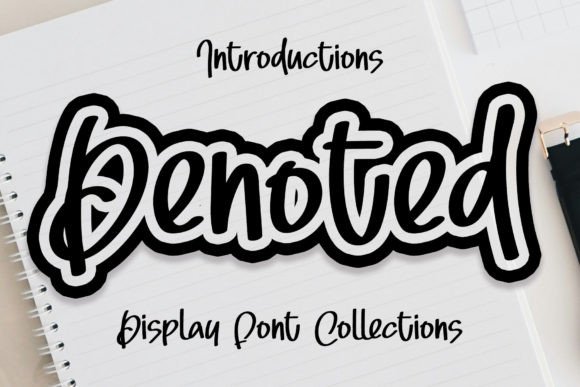
Denoted Font: A Sweet and Friendly Typeface for Your Designs
When it comes to choosing the right font for your design project, the options can be overwhelming. With so many styles and typefaces to choose from, it can be difficult to find the perfect fit. However, if you’re looking for a font that is both sweet and friendly, look no further than Denoted. This beautiful font is perfect for a wide range of designs, from creative projects to commercial applications.
The Unique Style of Denoted Font
Denoted font is a unique and natural typeface that is sure to capture the attention of your audience. Its distinctive style is characterized by its rounded edges and smooth curves, giving it a friendly and approachable feel. The font’s natural style makes it incredibly fitting for a large pool of designs, from playful and creative projects to more formal and professional applications.
The Versatility of Denoted Font
One of the best things about Denoted font is its versatility. Its unique style makes it suitable for a wide range of designs, from:
- Creative projects, such as brochures, flyers, and posters
- Commercial applications, such as logos, branding, and advertising
- Digital media, such as websites, social media graphics, and email marketing campaigns
- Print materials, such as business cards, letterheads, and invoices
The only limit to using Denoted font is your imagination. With its natural and unique style, you can create stunning designs that capture the attention of your audience and leave a lasting impression.
The Benefits of Using Denoted Font
There are many benefits to using Denoted font in your designs. Some of the advantages of this beautiful font include:
- Unique style: Denoted font has a distinctive style that sets it apart from other typefaces.
- Versatility: Denoted font is suitable for a wide range of designs and applications.
- Friendliness: The font’s natural and rounded edges give it a friendly and approachable feel.
- Ease of use: Denoted font is easy to read and use, making it perfect for body text and headlines.
How to Use Denoted Font in Your Designs
Using Denoted font in your designs is easy. Here are a few tips to get you started:
- Pair it with other fonts: Denoted font pairs well with other fonts, such as sans-serif and serif typefaces.
- Use it for headlines and body text: Denoted font is suitable for both headlines and body text, making it a great choice for a wide range of designs.
- Experiment with different colors: Denoted font looks great in a variety of colors, from bold and bright to subtle and muted.
In conclusion, Denoted font is a sweet and friendly typeface that is perfect for a wide range of designs. Its natural and unique style makes it incredibly fitting for creative projects, commercial applications, and digital media. With its versatility, ease of use, and unique style, Denoted font is a great choice for anyone looking for a beautiful and effective font for their designs.